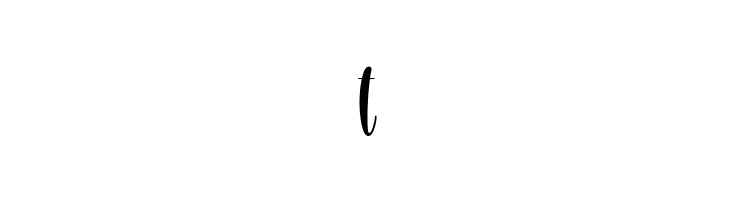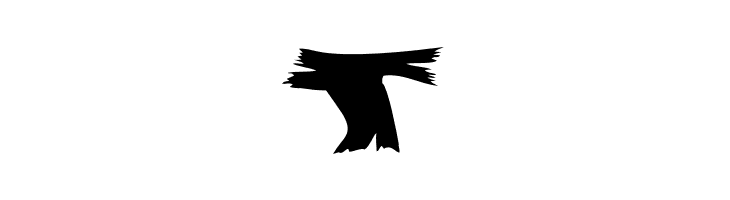
A bold, modern sans-serif font with clean lines and strong visual impact.
A modern, light sans-serif font with clean lines and balanced spacing.
A modern, sans-serif font with smooth, rounded edges and uniform stroke width.
A bold, flowing script font with a modern, handwritten aesthetic.
A bold, distressed font with a vintage, textured appearance.
An elegant script font with decorative swirls and loops.
A fluid and elegant script font with a handwritten feel.
A bold, flowing script font with elegant, cursive letterforms.
A bold, jagged font with a stormy, dynamic appearance.